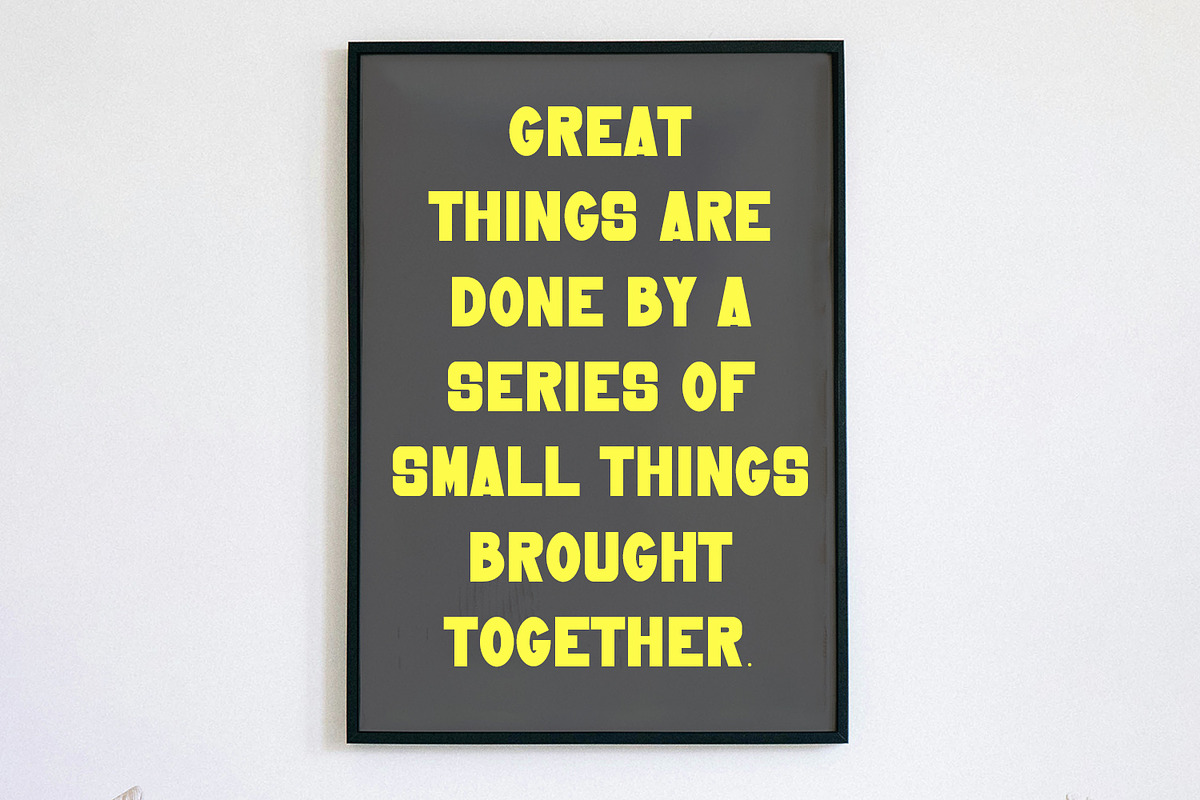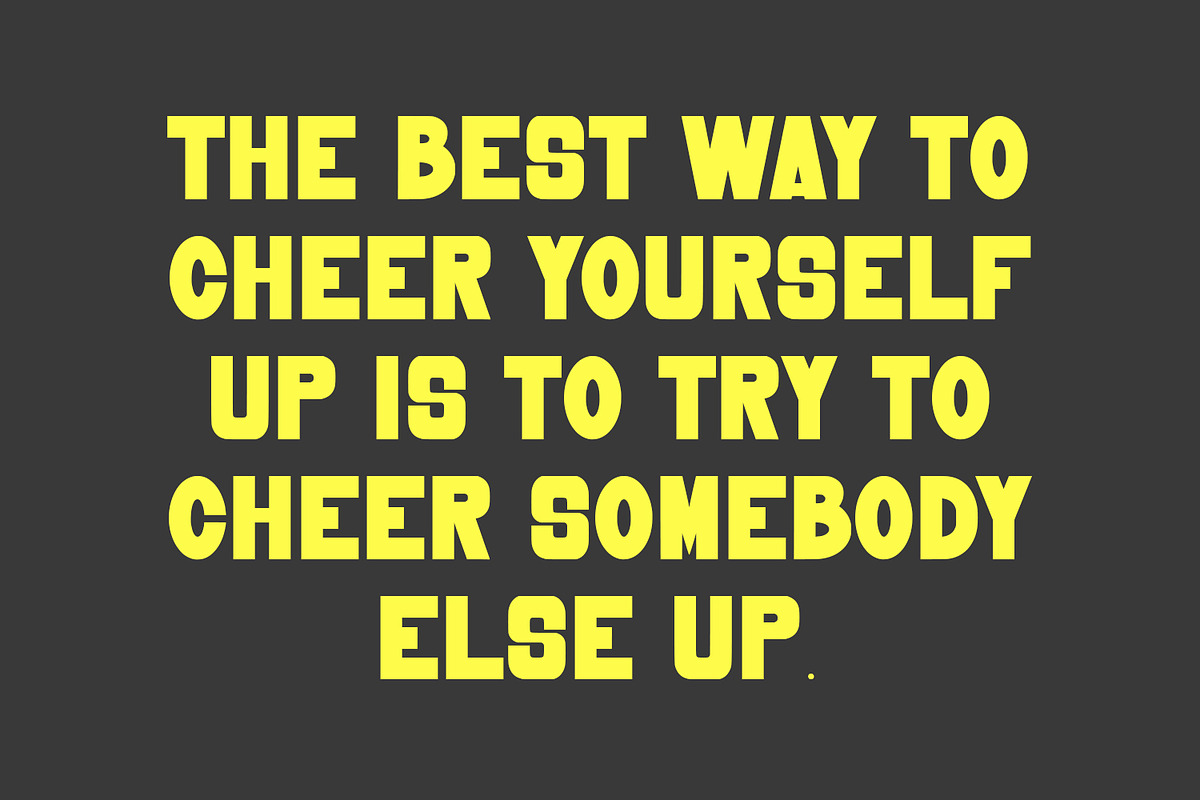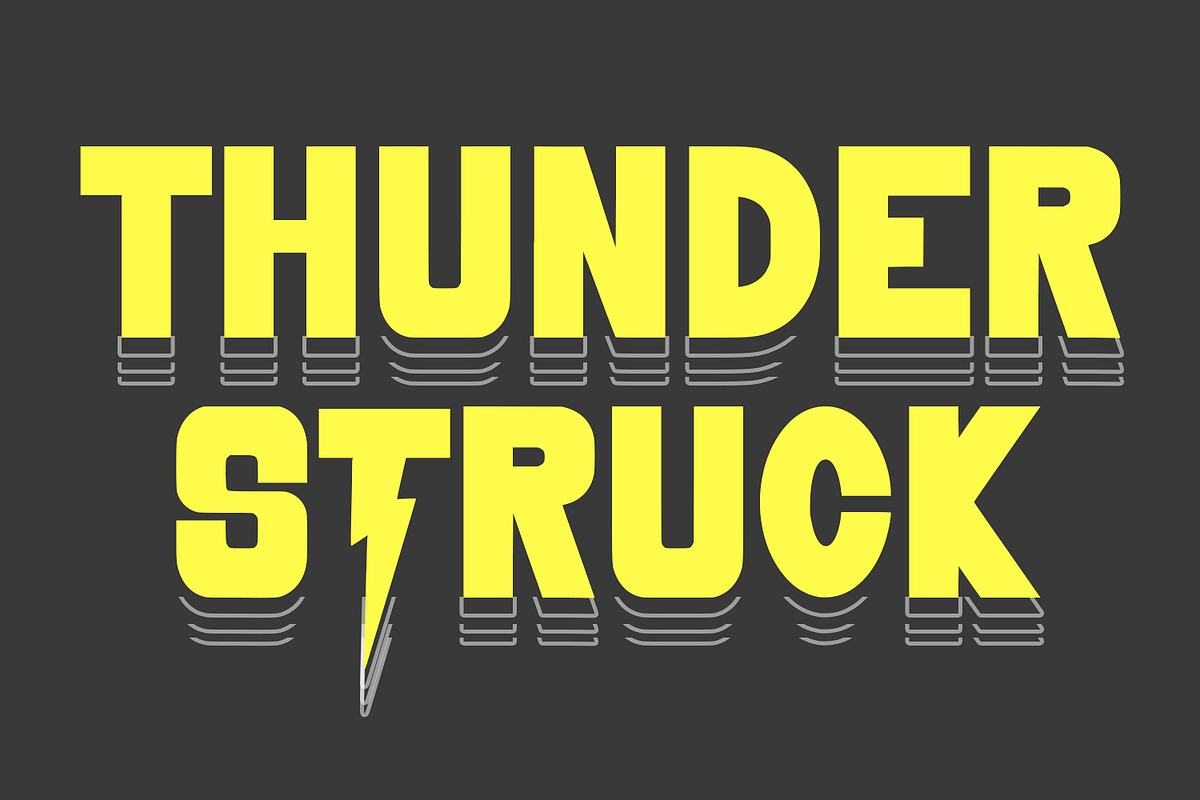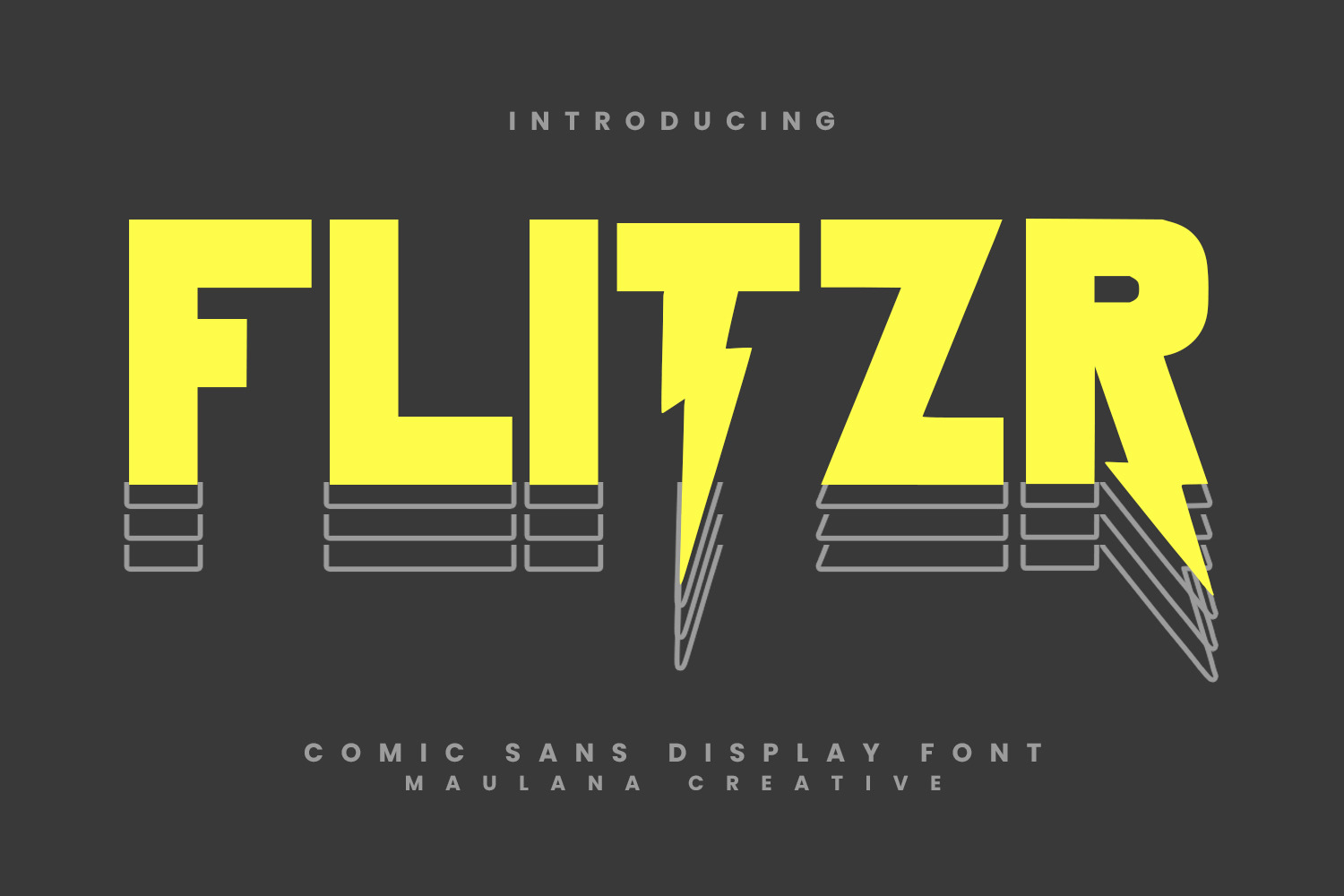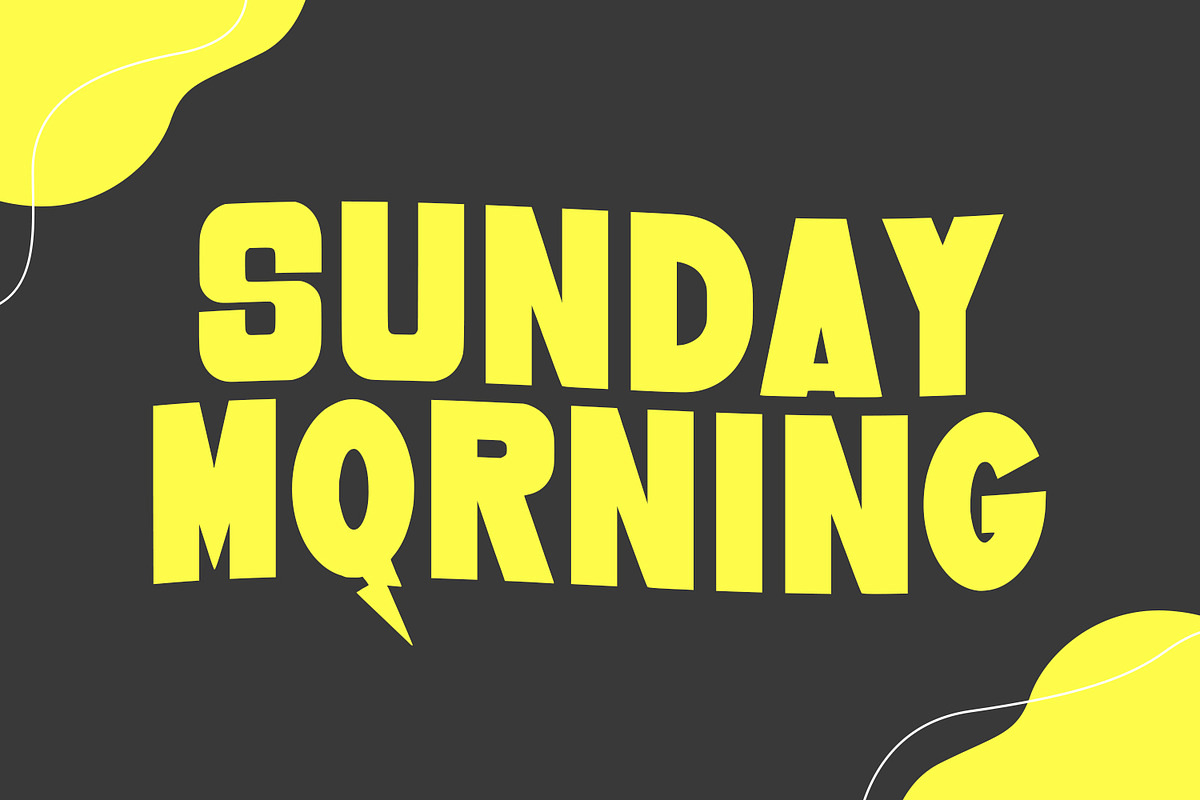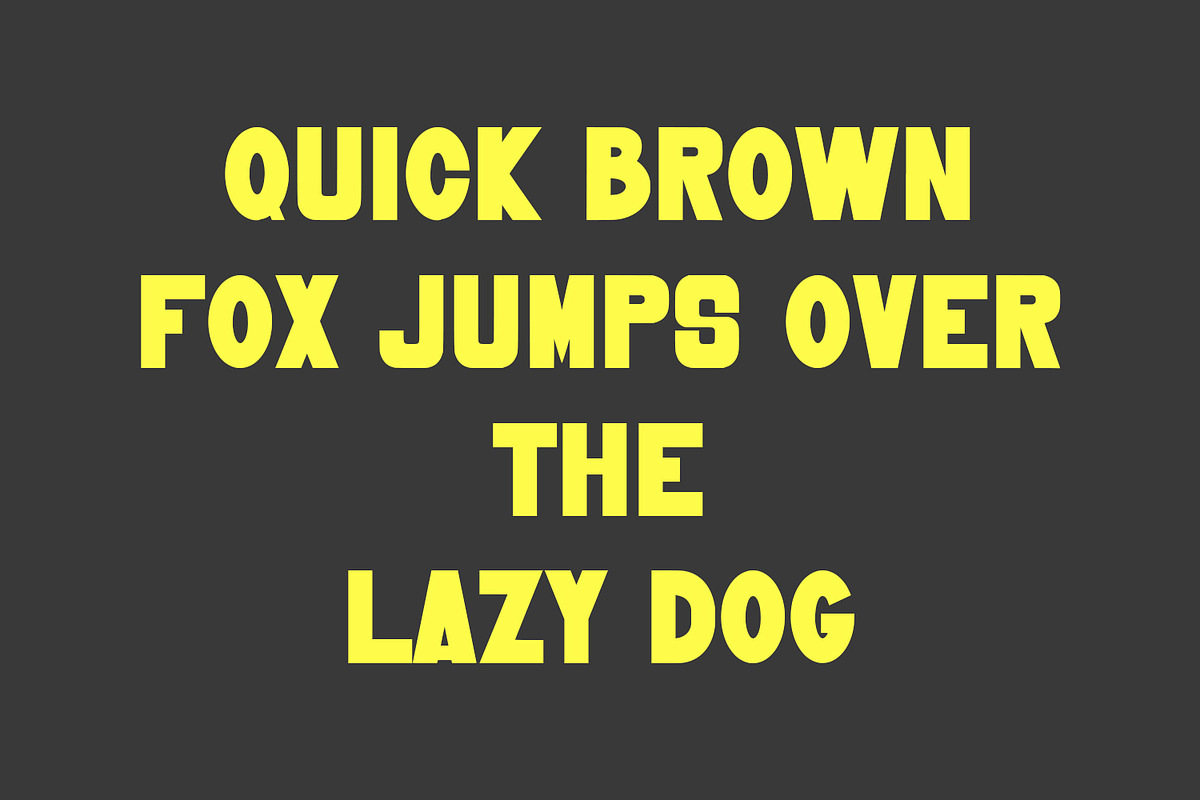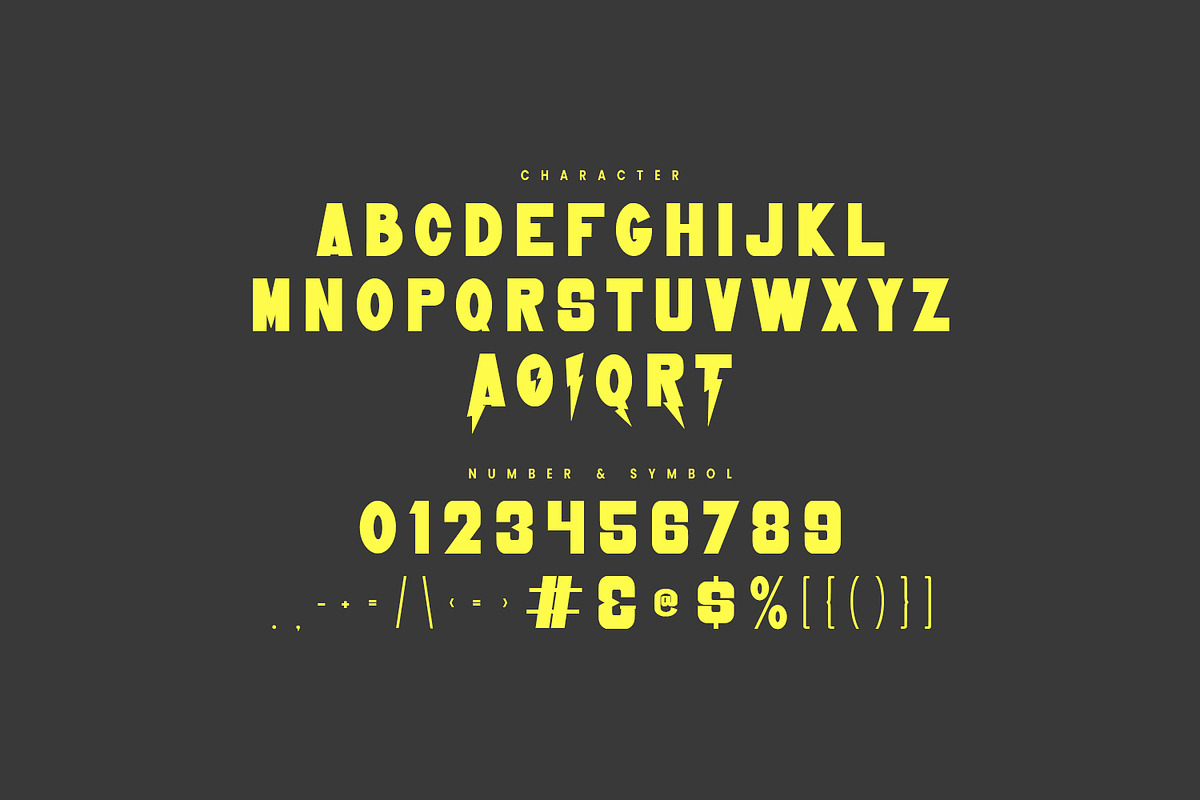
Flitzr Flash Comic Sans Display Font
Flitzr flash comic sans display font. With bold tall and sharp stroke, fun character with a bit of ligatures and alternates. To give you an extra creative work. Flitzr flash comic sans display font support multilingual more than 100+ language. This font is good for logo design, Social media, Movie Titles, Books Titles, a short text even a long text letter and good for your secondary text font with sans or serif. Make a stunning work with Flitzr flash comic sans display font.